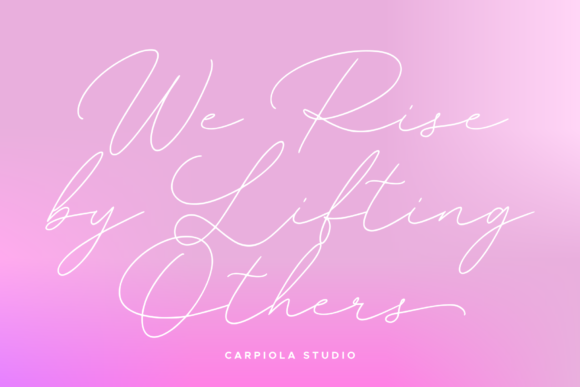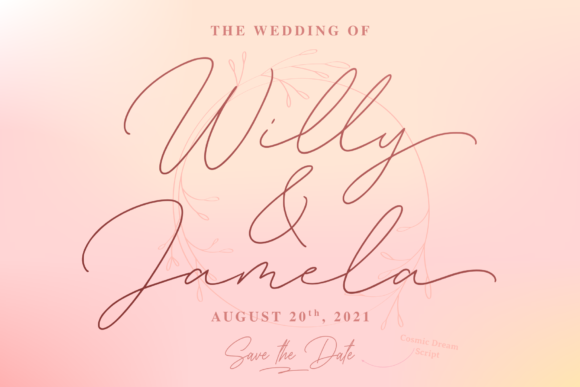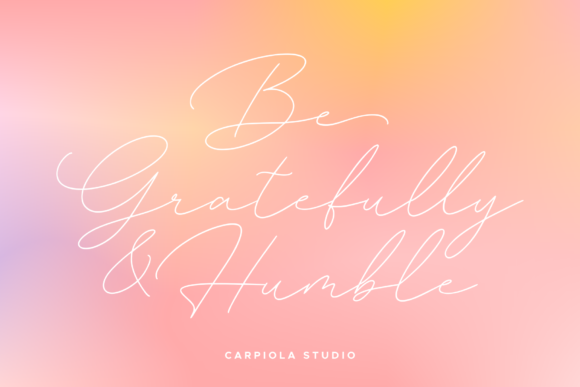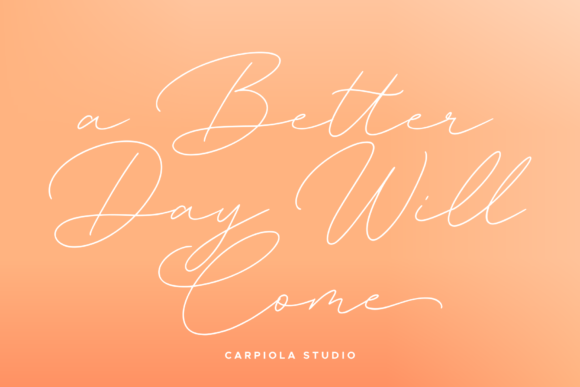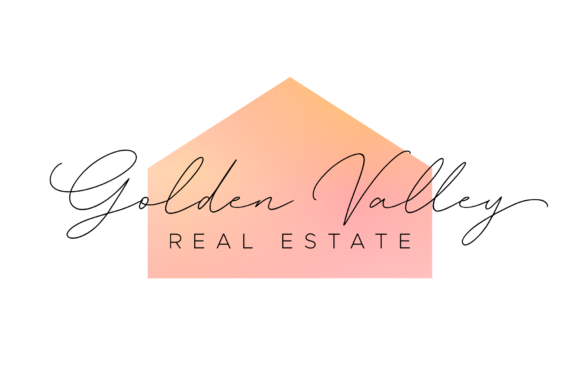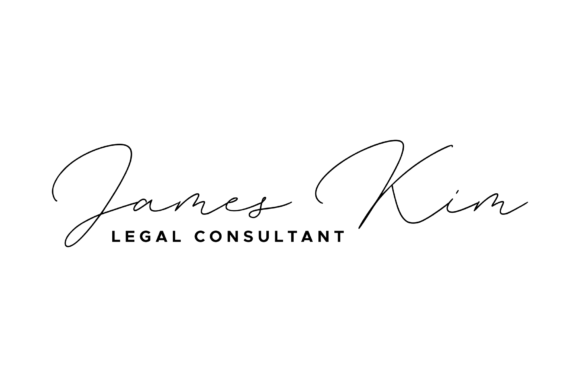
Hallery Font: A Timeless Handwritten Font for Creative Projects
In the world of typography, a good font can make all the difference in creating visually appealing designs. For designers and crafters looking for a lovely and timeless handwritten font, Hallery Font is an excellent choice. This beautiful font is perfect for creating eye-catching logos, business cards, branding, and quotes that stand out from the crowd.
What Makes Hallery Font Special?
Hallery Font is a stunning handwritten font that boasts a classic and elegant feel. Its timeless design makes it suitable for a wide range of creative projects, from traditional branding and advertising to modern digital media. The font’s unique charm and character will add a personal touch to any design, making it perfect for crafters and designers who want to create something truly special.
Key Features of Hallery Font
- PUA Encoded: Hallery Font is PUA (Private Use Area) encoded, which means that you can access all of the glyphs and swashes with ease. This feature makes it simple to use the font in your designs and ensures that you can take full advantage of its creative possibilities.
- Handwritten Style: The font’s handwritten style gives it a personal and organic feel that is perfect for creating unique and eye-catching designs.
- Timeless Design: Hallery Font’s classic design ensures that it will remain stylish and relevant for years to come, making it a great investment for designers and crafters.
- Versatile: The font is suitable for a wide range of creative projects, from logos and business cards to branding and quotes.
Uses for Hallery Font
Hallery Font is a versatile font that can be used for a variety of creative projects. Here are some ideas to get you started:
- Logo Design: Create a memorable and eye-catching logo for your business or brand with Hallery Font.
- Business Cards: Use the font to create professional and stylish business cards that make a great impression.
- Branding: Hallery Font is perfect for creating consistent and recognizable branding across all of your marketing materials.
- Quotes and Posters: Use the font to create inspiring and visually appealing quotes and posters that grab attention.
Why Choose Hallery Font?
With so many fonts available, why choose Hallery Font? Here are just a few reasons why this font stands out from the crowd:
- Unique Style: Hallery Font has a unique and distinctive style that will set your designs apart from the competition.
- Easy to Use: The font is PUA encoded, making it easy to access all of the glyphs and swashes.
- High-Quality: Hallery Font is a high-quality font that is designed to produce crisp and clear results, even at small sizes.
In conclusion, Hallery Font is a beautiful and versatile handwritten font that is perfect for designers and crafters looking to create eye-catching logos, business cards, branding, and quotes. With its timeless design, PUA encoding, and unique style, this font is sure to become a favorite in your design arsenal. Whether you’re a seasoned designer or just starting out, Hallery Font is a great choice for any creative project.